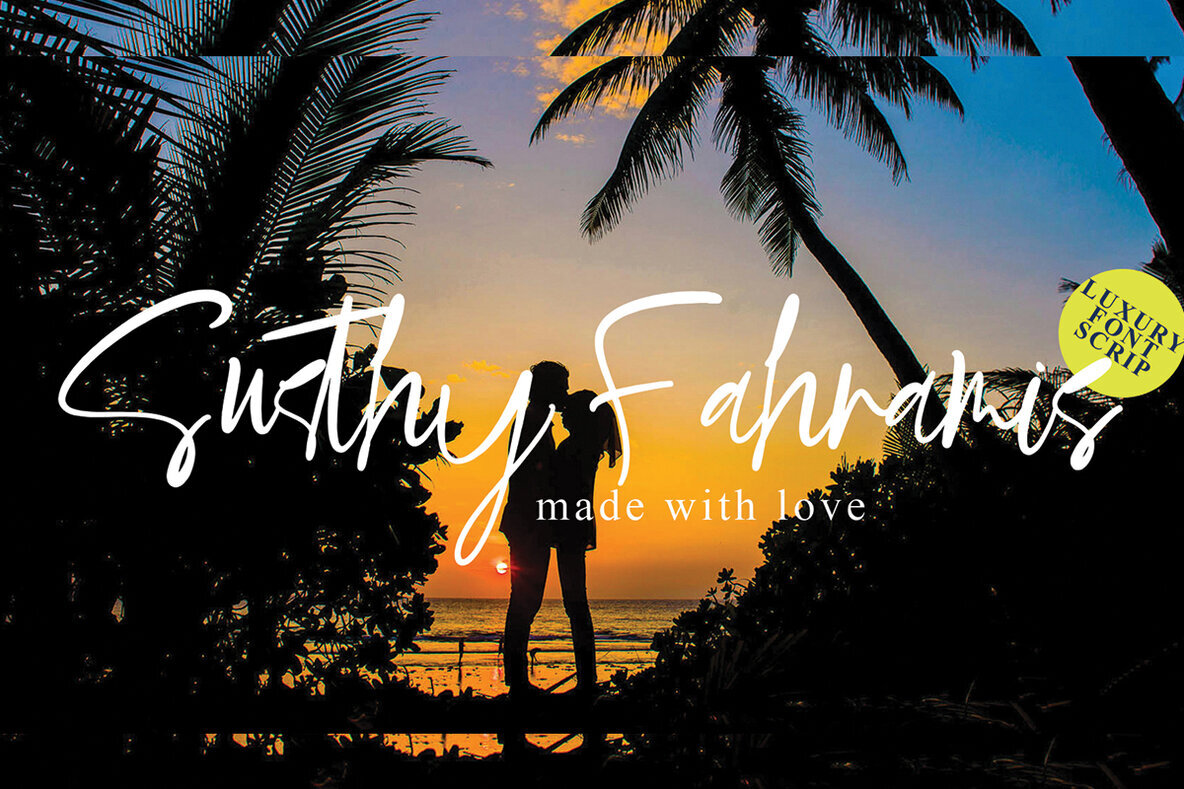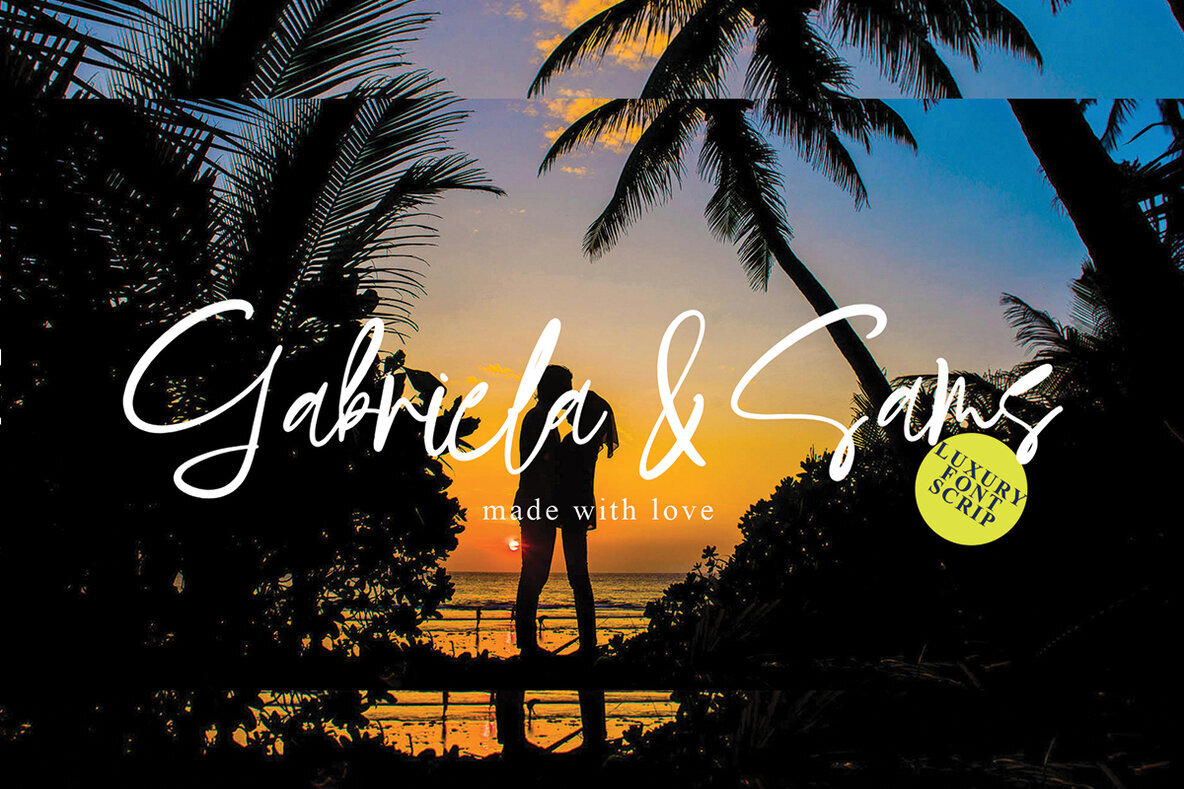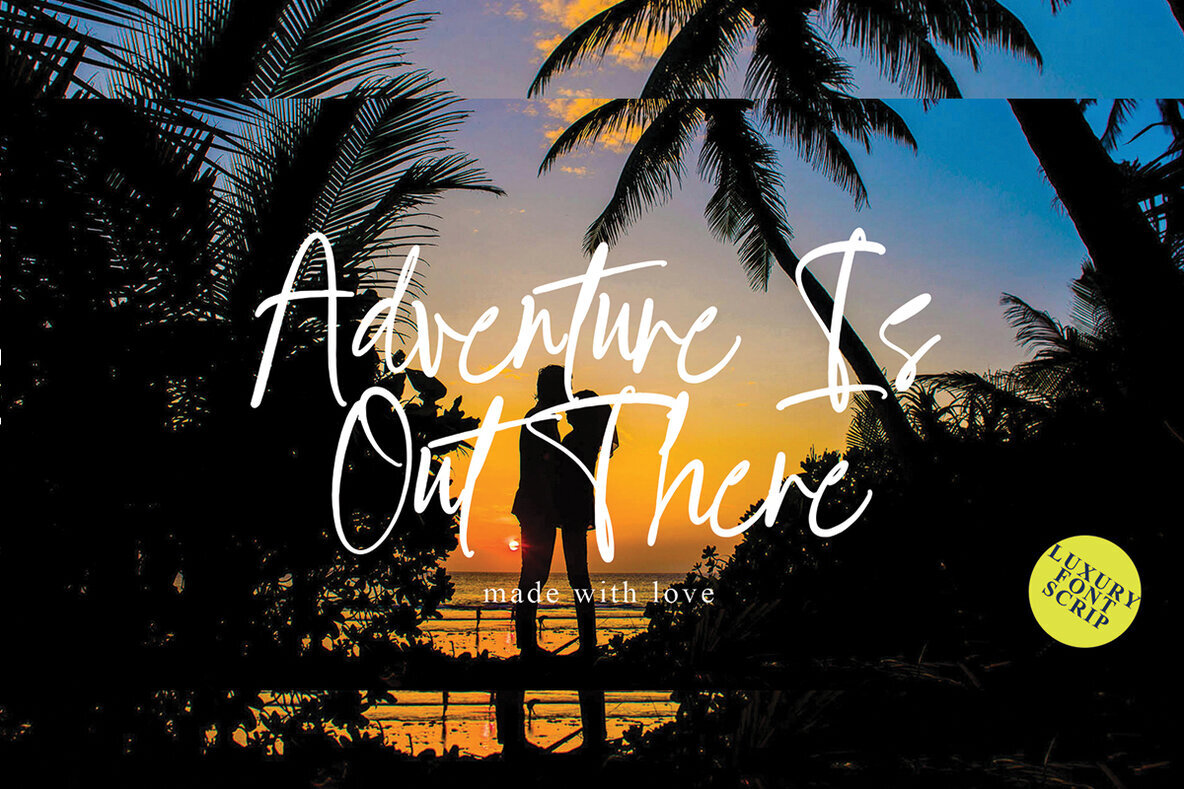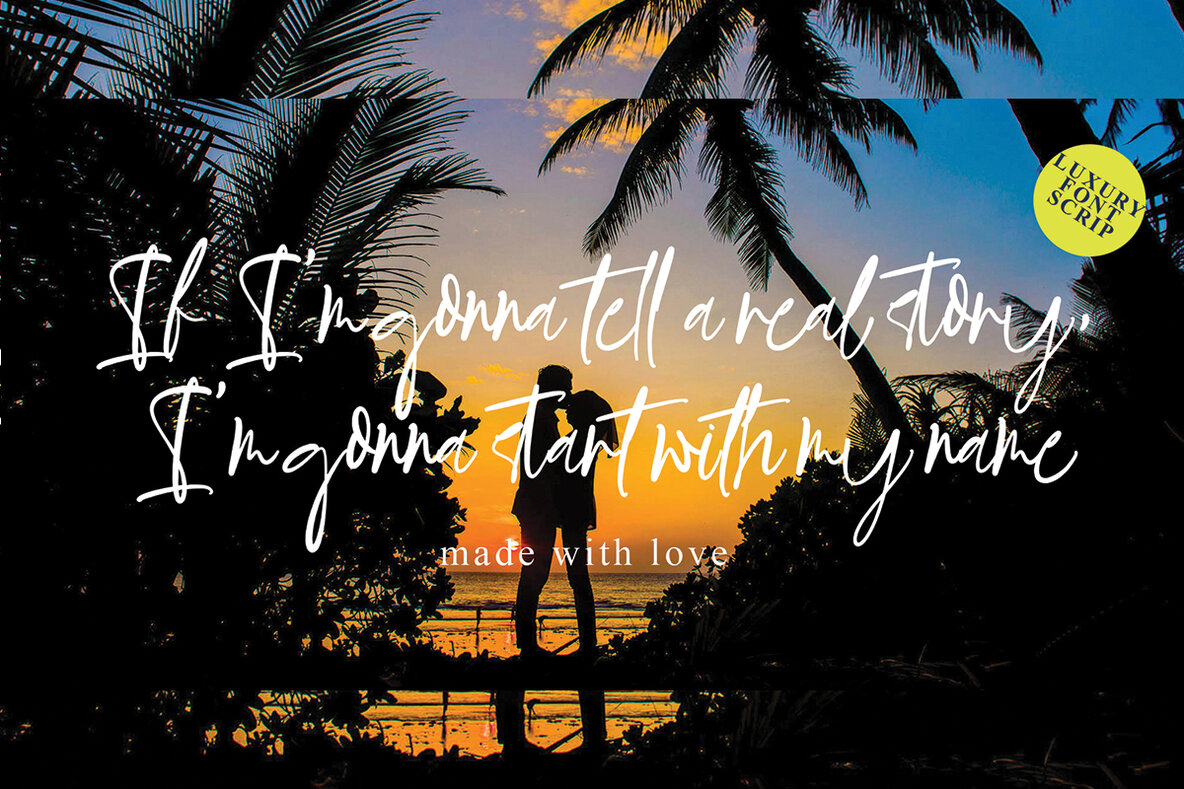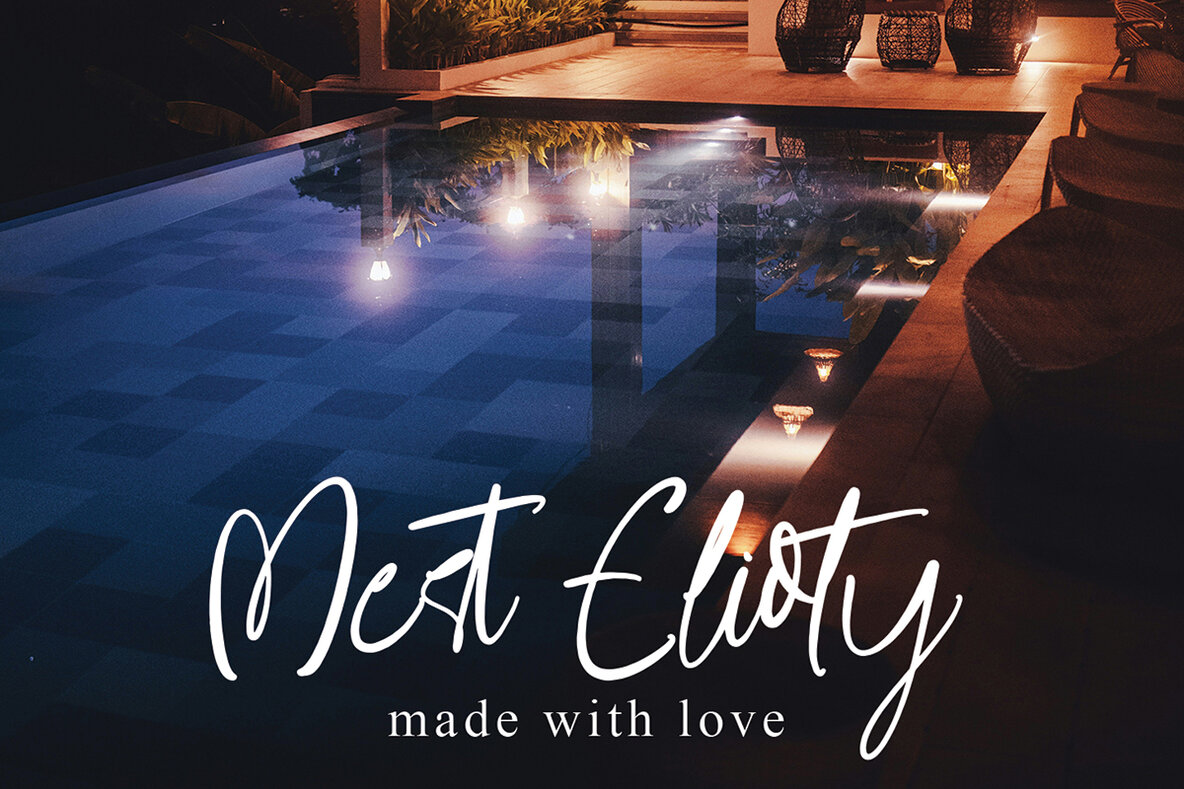
Susthy Fahramis Font
Susthy Fahramis
Discover the innovative charm of Susthy Fahramis by MissinkLab Studio—a font designed to imbue your projects with a fresh, modern edge. Whether you're crafting eye-catching quotes, distinctive logos, or stylish blog headers, Susthy Fahramis offers the perfect blend of elegance and functionality. Ideal for a wide range of applications, this versatile typeface excels in creating captivating posters, compelling branding materials, and inviting stationery. It's also an excellent choice for personalized letters and invitations, bringing a unique touch to any design endeavor. Embrace the sophistication of Susthy Fahramis and elevate your design projects today with this exceptional font choice.Susthy Fahramis: A Versatile Typeface for Creative Projects